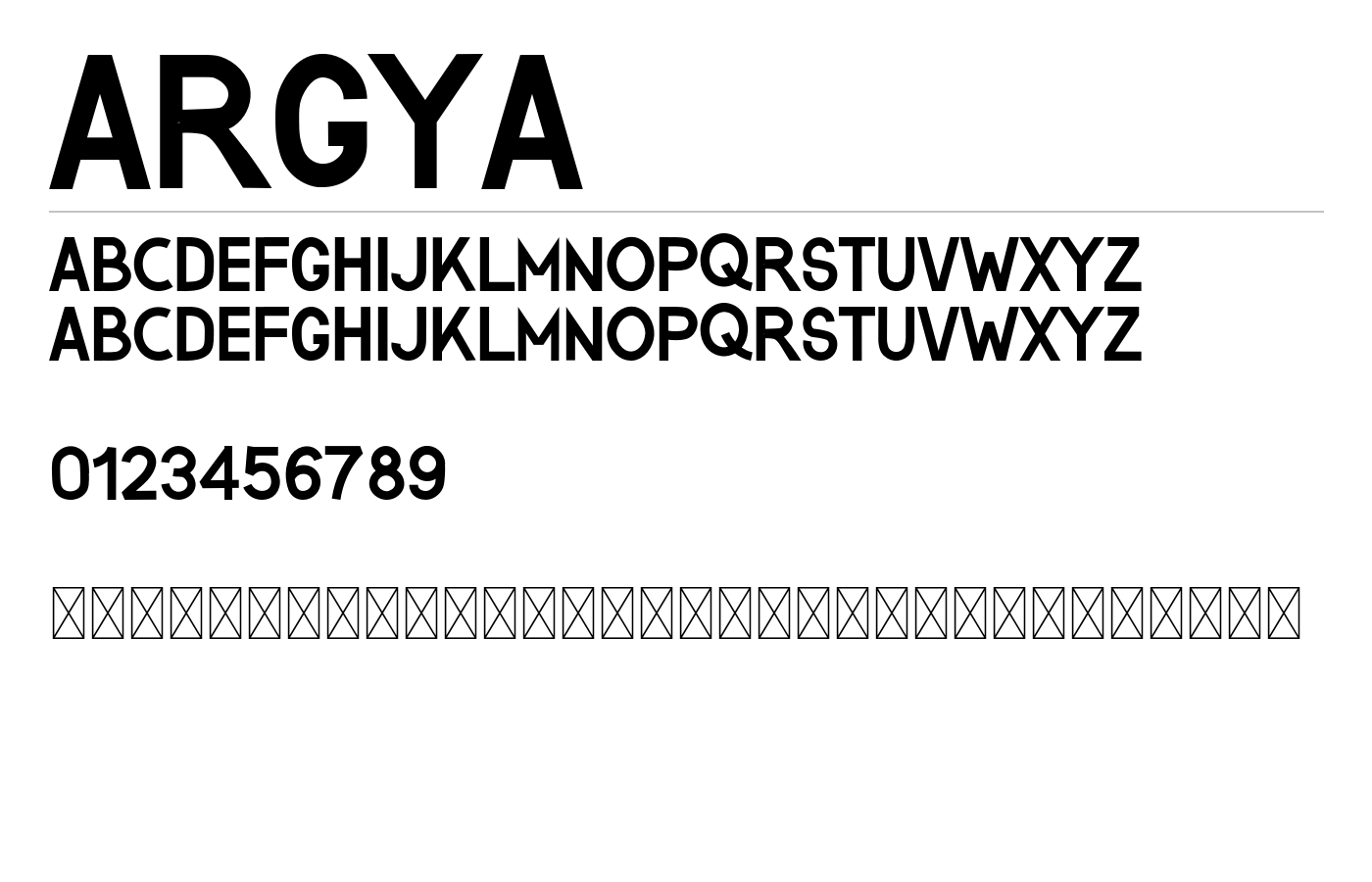
ARGYA is a bold, modern sans serif font characterized by its clean, geometric shapes and uniform stroke weight. It delivers a strong, professional look with slightly condensed letterforms and a high x-height, making it highly readable and ideal for impactful headings and branding. This typeface works well for contemporary designs seeking a straightforward, confident style in logos, editorial layouts, and digital content.
ARGYA Font